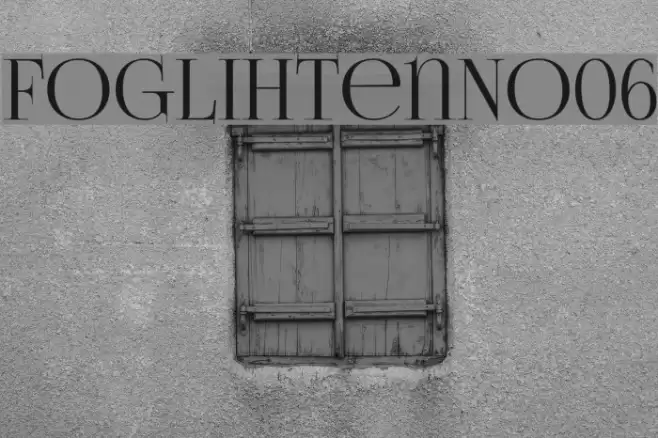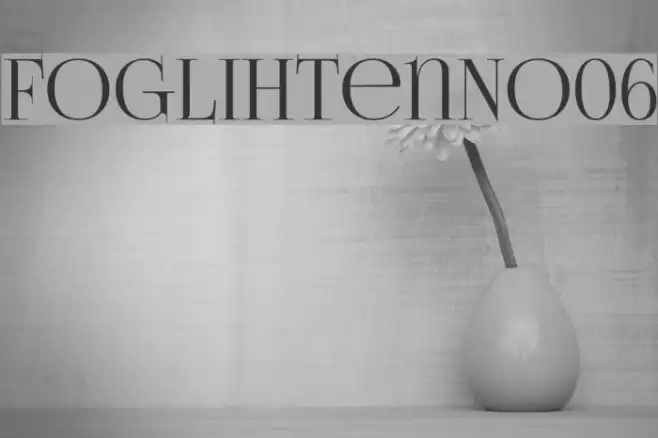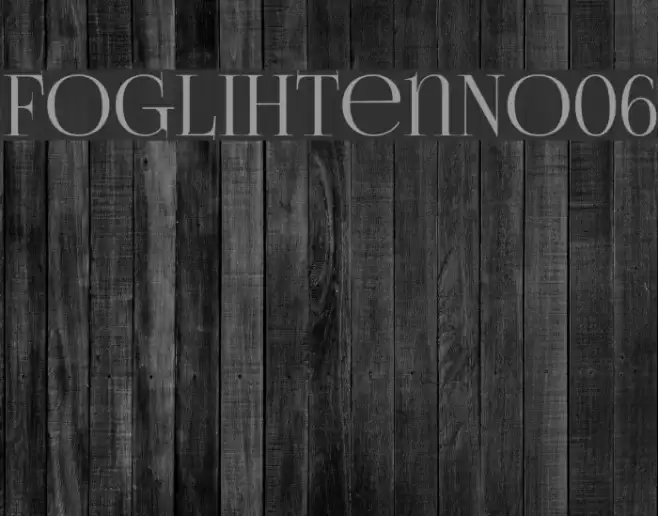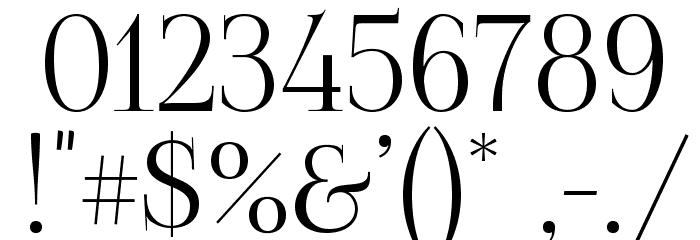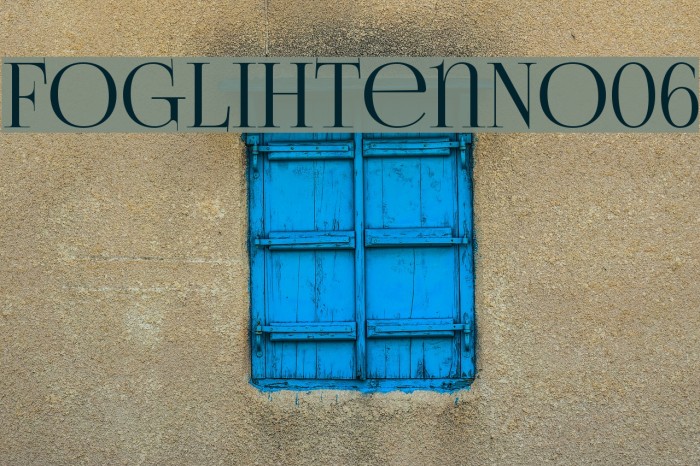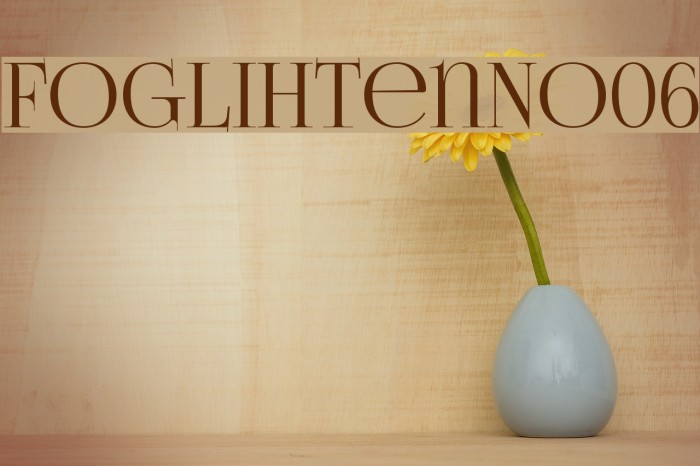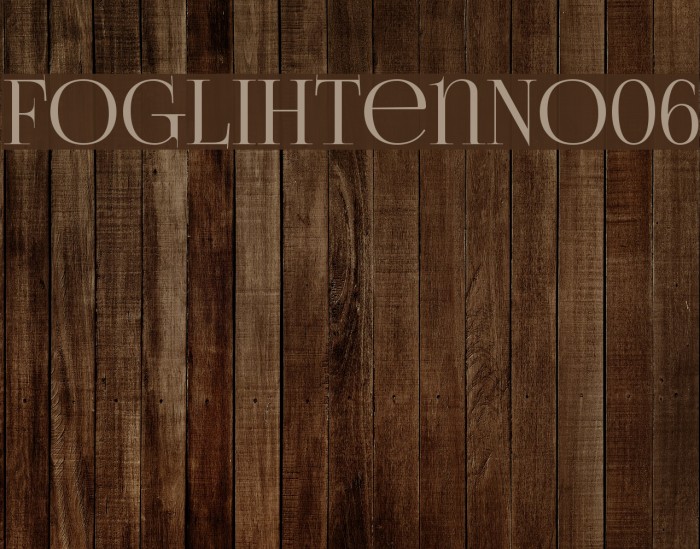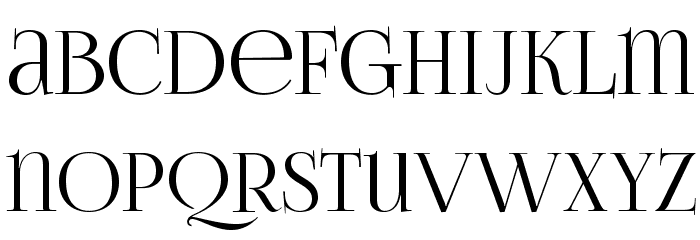
FoglihtenNo06
This font exhibits a classic serif style with elegant and refined strokes. The uppercase letters are tall and slightly condensed, featuring sharp serifs that add a touch of sophistication. The lowercase letters maintain a consistent style, with smooth curves and a balanced appearance. The numerals are distinct and clear, making them easily readable. Special characters are designed with the same attention to detail, ensuring they complement the overall aesthetic. The font's high contrast between thick and thin strokes enhances its readability and visual appeal, making it suitable for various design applications.
A classic serif font with elegant strokes and high contrast, perfect for sophisticated designs.
- Category: Serif
- Width: Condensed
- Contrast: High
- Overall Style: Classic